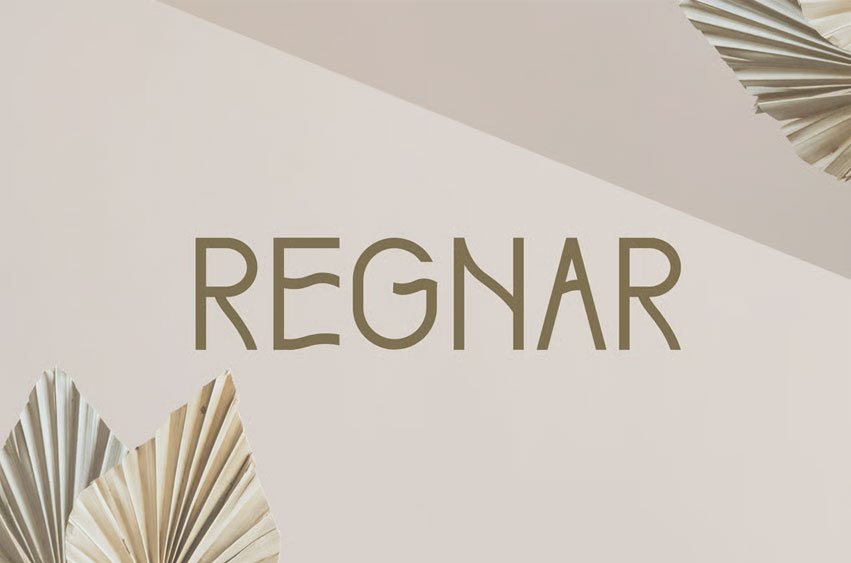
Regnar Boho Font Unique Display Font. It is suitable for flyers, posters, novels, letterheads, or any design requirements you want to be awesome.
It will certainly amaze your readers.